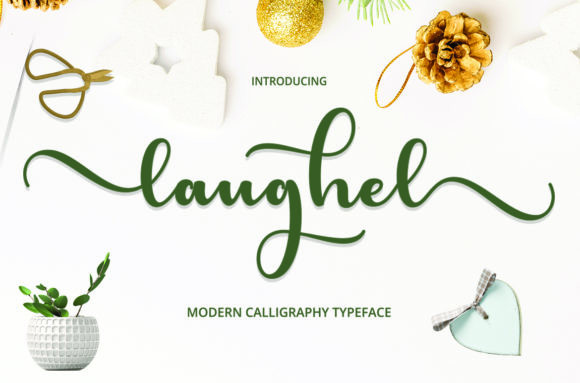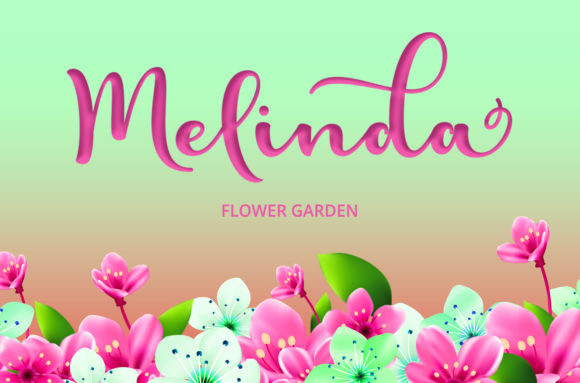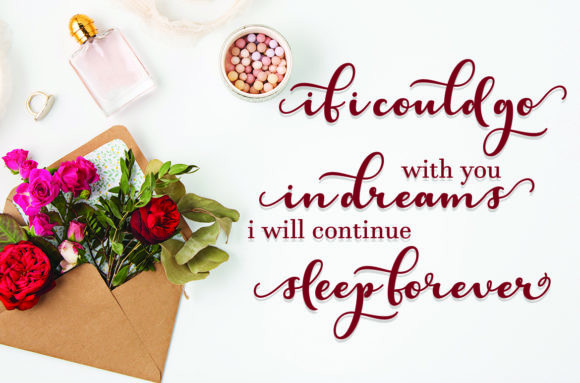
Laughel Font
Laughel is a delicate and elegant handwritten font. Its distinct and well rounded letters make this font a masterpiece. Fall in love with its incredibly versatile style and use it to create spectacular designs!